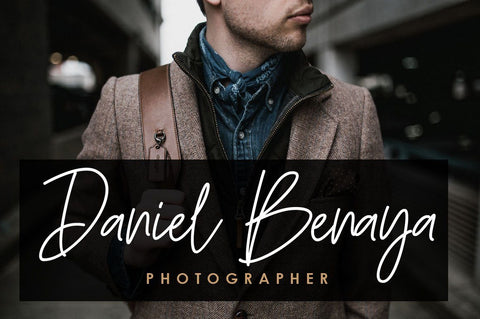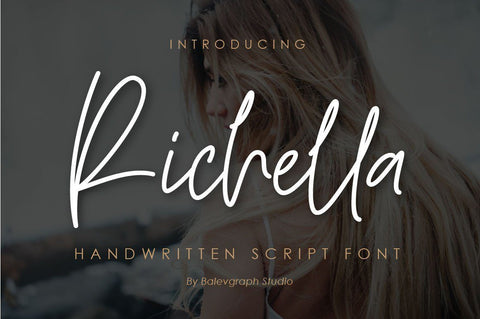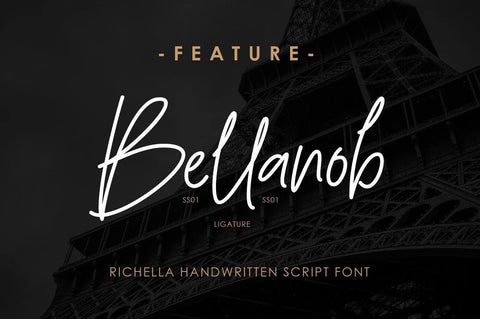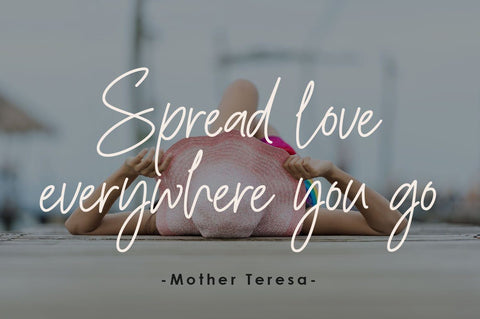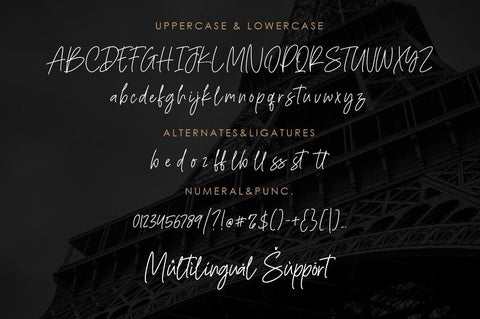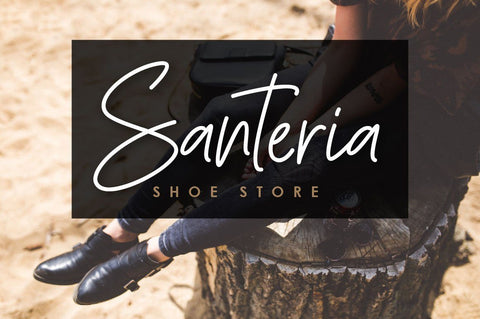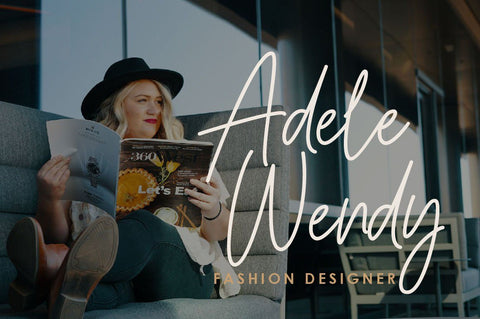
Richella Handwritten Script Font
Richella is a sweet and cursive handwritten font. This gentle font will look gorgeous on a variety of design ideas. It will add a joyful and romantic touch to each of your projects!
- Uppercase, Lowercase, Numerals & Punctuations
- Ligature & Alternate
- Multilingual support